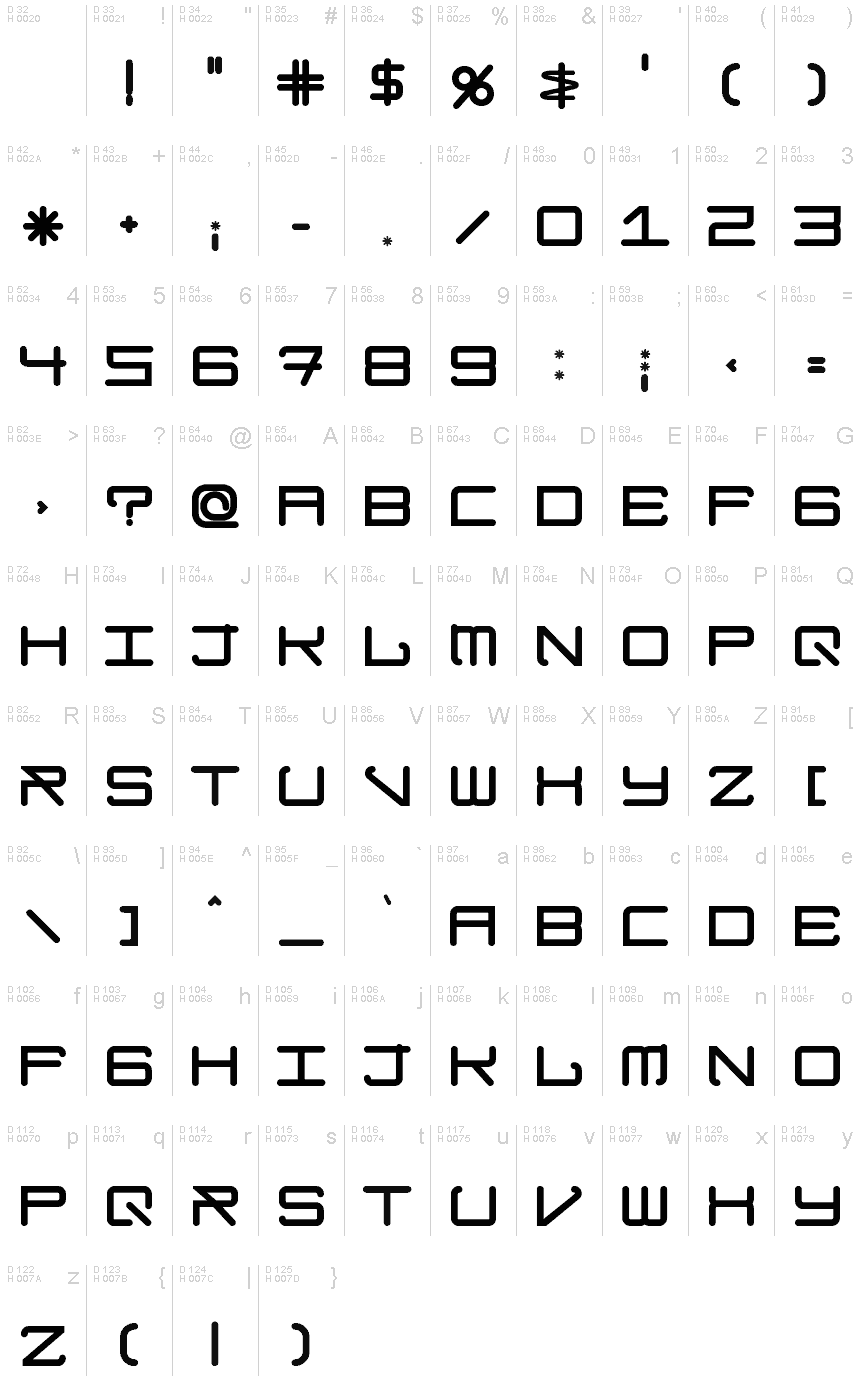
ModernismRoundedBold
Modernism Rounded Bold is a distinctive display font that embodies the bold, futuristic aesthetic of the techno design style. Crafted by Max Infeld of Xerographer Fonts, this expanded font boasts a striking, modern appearance with its sharp angles and geometric forms.
The rounded edges provide a softer counterpoint, creating an intriguing balance between technical precision and organic fluidity. Modernism Rounded Bold excels in attention-grabbing headlines, digital interfaces, and branding applications that seek to convey a sense of technological advancement and progressive design.
Its versatile nature allows it to seamlessly integrate into a wide range of contemporary visual identities, from cutting-edge tech companies to avant-garde creative agencies.